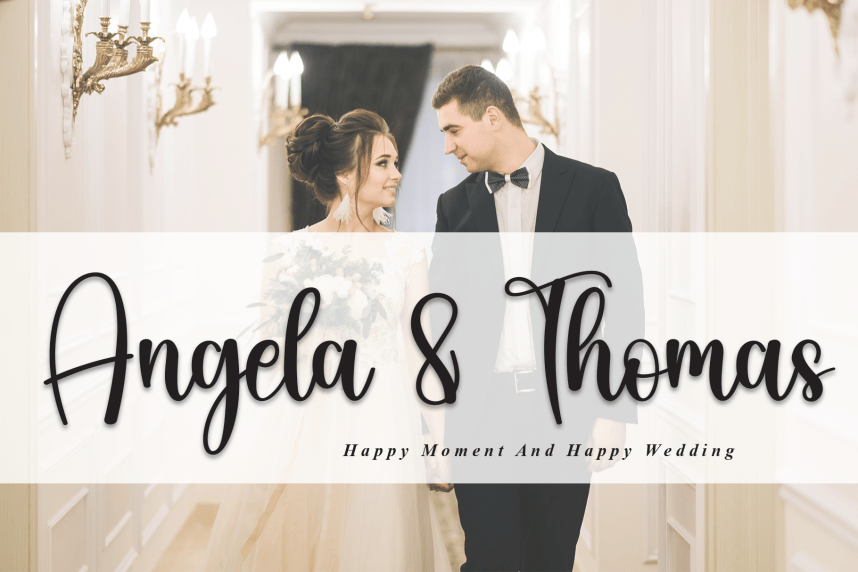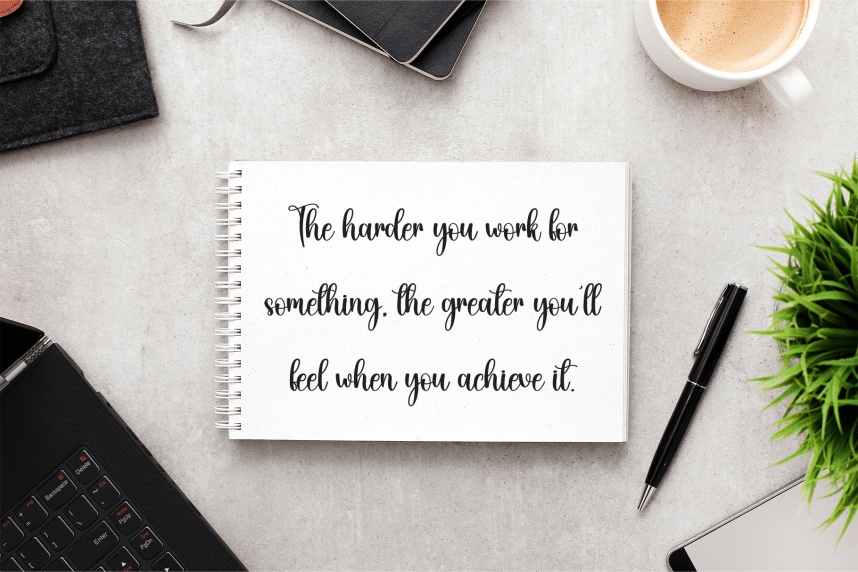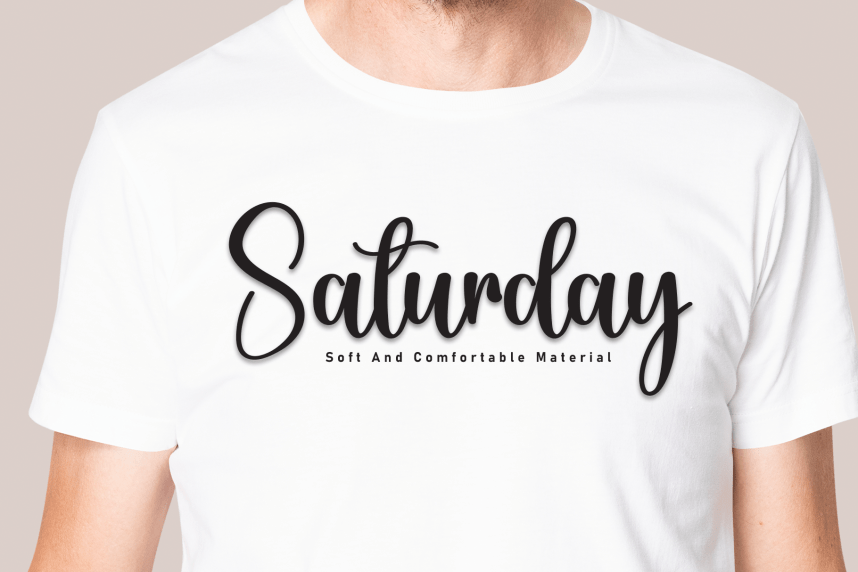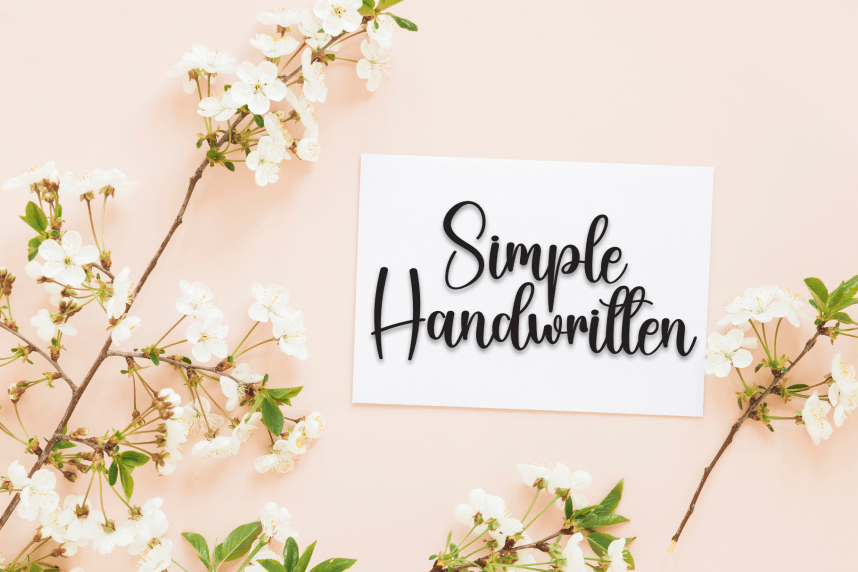
Winter Snowman – Elegant Script Handwritten Font
Winter Snowman – Elegant Script Handwritten Font, special creative products for you, our products will give you an extraordinary experience. the latest style letters are perfect for wall displays, wedding invitations, social media post logos, advertisements, product packaging, product designs, labels, photography, watermarks, invitations, stationery, and any project that requires taste handwriting.